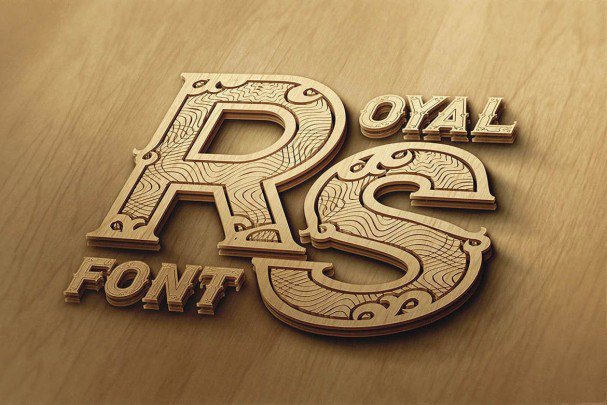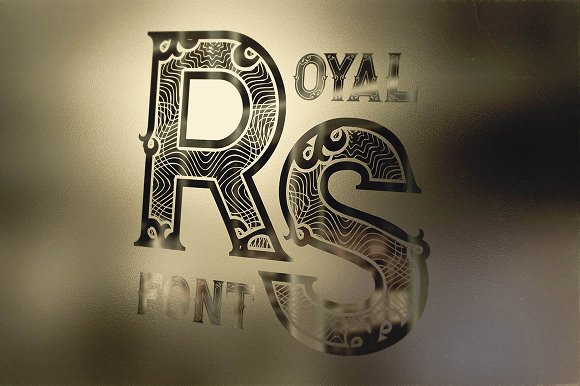
Royal Vintage Style Font
Here we are showcasing the Royal Vintage Style Font, known as the top choice for creating text designs for tasks such as t-shirt printing and playing card printing.
And he releases it via variety foundry for the number one time. This has taken the fundamentals of doraemon font. This font is used inside the photograph detection technique.